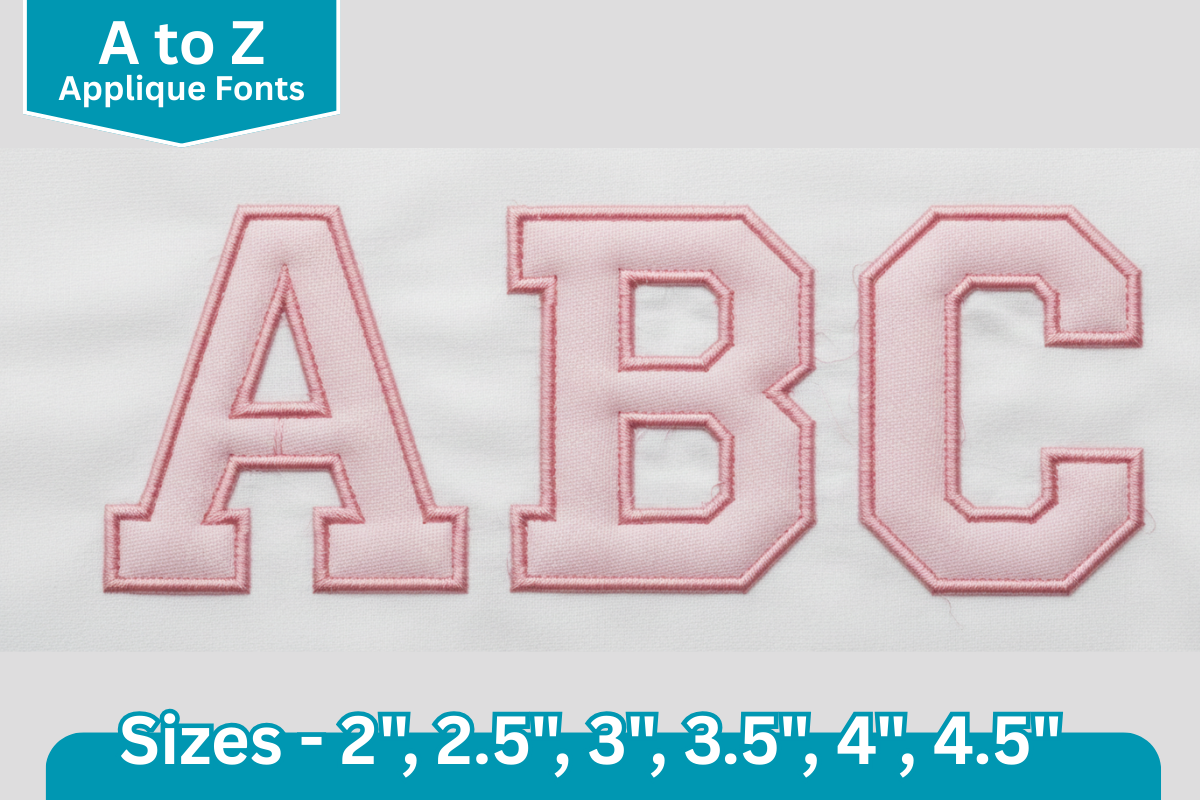
Classic Varsity Applique Font
This applique alphabet embroidery font includes all A–Z capital letters. Each letter is carefully digitized for clean stitching and comes in 6 sizes. Perfect for monograms, names, sportswear, kids’ projects, bags, and home décor items. Add a bold handmade touch to your embroidery projects with this versatile applique font set. The sizes and stitches information provided as a summary of what is available in this download file. For the full dimension details of the all letters in this set, click on the More Sewing Info (PDF) button on this page. This machine embroidery design comes with multiple embroidery file formats and can be used with multiple embroidery machines.